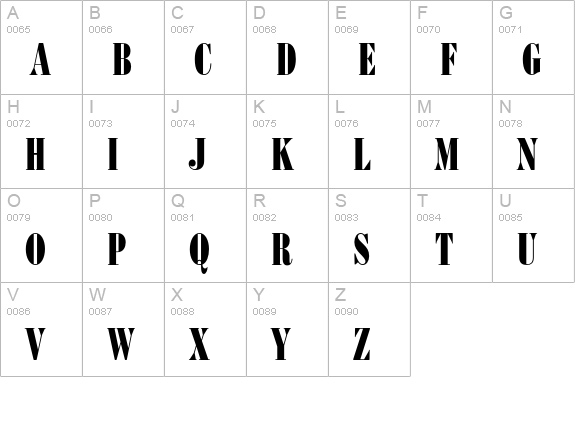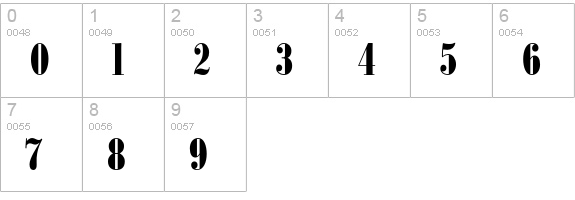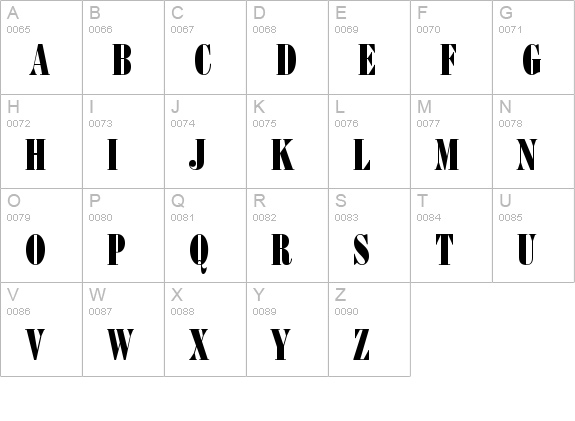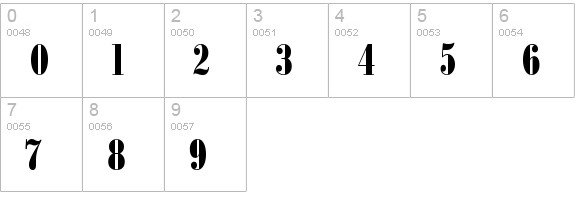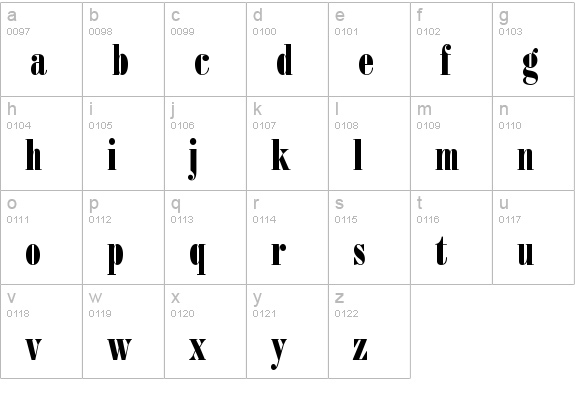
BodoniFB-BoldCompressed Font Details
BodoniFB-BoldCompressed is a stylish and elegant font that exudes sophistication and modernity. With its bold and compressed design, this typeface is perfect for making a statement in headlines, titles, and logos. The clean lines and sharp serifs of BodoniFB-BoldCompressed give it a timeless appeal that is both classic and contemporary. The best part? BodoniFB-BoldCompressed is available for free download at FontsMarket.com. Whether you're a designer looking for a standout typeface or a business owner in need of a sleek branding solution, BodoniFB-BoldCompressed is a versatile font that will elevate your projects to the next level. Don't miss out on this opportunity to enhance your designs with the beauty and sophistication of BodoniFB-BoldCompressed - download it for free today!